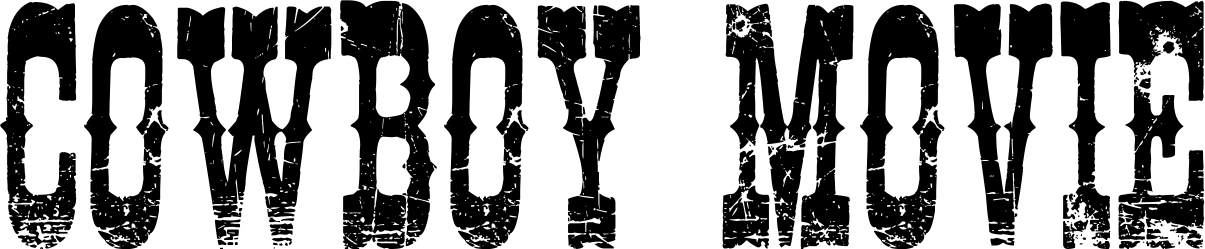
Cowboy Movie Font
If your content requires a Western vibe and you are looking for a way to create that mood, wonder no more because we got what you need. Cowboy Movie is the solution to your problem which is a Western font and you can use it in movie titles, logos, book covers, posters, and t-shirts.
This vintage T-shirt font offers you a reasonable collection of characters that contain the uppercase of the alphabet, the numbers, and punctuation marks except for the lowercase.